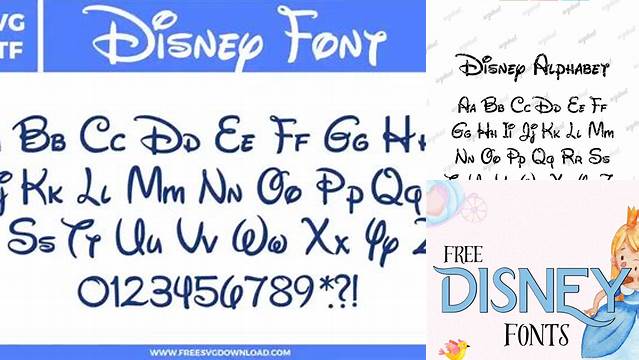
Hey there, fellow creatives! Are you ready to add a touch of Disney magic to your next project? Whether you're crafting invitations for a whimsical birthday party, designing a personalized t-shirt for your next Disney vacation, or simply want to inject some childhood nostalgia into your designs, the right font can make all the difference. And what font is more synonymous with magic and wonder than the iconic Disney font? In this comprehensive guide, we'll dive deep into the world of free Disney font SVGs, exploring everything you need to know to find, use, and even create your own Disney-inspired typography. So, buckle up, grab your creative hats, and let's embark on a magical journey into the realm of Disney fonts!
What is a Disney Font SVG?
Before we delve into the specifics, let's clarify what a Disney font SVG actually is. SVG stands for Scalable Vector Graphics, which is a vector image format. Unlike raster images (like JPEGs or PNGs) that are made up of pixels, SVGs are based on mathematical equations that describe lines, curves, and shapes. This means that Disney font SVGs can be scaled up or down without losing any quality – they'll look crisp and clear whether you're using them for a small craft project or a large-scale banner. This scalability is a huge advantage for designers, as it allows for maximum flexibility in their creative endeavors. Imagine you're creating a banner for a birthday party; with a Disney font SVG, you can enlarge the letters to a substantial size without any pixelation or blurriness. This ensures your final product looks professional and polished, maintaining the visual appeal of the beloved Disney font. SVGs are also generally smaller in file size compared to raster images, making them easier to store and share. This is particularly beneficial when working with multiple design elements, as it helps to keep your project files organized and efficient. Furthermore, the vector nature of Disney font SVGs allows for easy editing and customization. You can change the colors, outlines, and even the shapes of the letters to perfectly match your project's aesthetic. This level of versatility opens up a world of creative possibilities, allowing you to truly personalize your designs. In summary, a Disney font SVG is a versatile, high-quality resource that can elevate your projects to a whole new level of enchantment. It provides the perfect blend of scalability, editability, and visual appeal, making it an indispensable tool for any Disney enthusiast or creative professional.
Why Use a Disney Font SVG?
Okay, so we know what a Disney font SVG is, but why should you actually use one? The reasons are as magical as Cinderella's transformation! First and foremost, the Disney font is instantly recognizable and evokes a sense of nostalgia and wonder. It's the typeface that has graced countless movie titles, posters, and merchandise, making it synonymous with the beloved Disney brand. By incorporating this iconic font into your projects, you're instantly tapping into that emotional connection and adding a touch of whimsy and charm. Imagine the delight of a child receiving a birthday invitation written in the classic Disney font – it immediately sets the tone for a magical celebration! Beyond the emotional appeal, Disney font SVGs offer a practical advantage: scalability. As mentioned earlier, SVGs can be scaled to any size without losing quality, making them perfect for a wide range of projects, from small stickers to large banners. This flexibility ensures that your designs will always look sharp and professional, regardless of the final size. Think about creating personalized decorations for a Disney-themed party; you can use the same Disney font SVG to create everything from small cupcake toppers to large welcome signs, all while maintaining consistent visual quality. Furthermore, using a Disney font SVG can significantly enhance the overall aesthetic of your projects. The playful curves and elegant lines of the font add a touch of sophistication and fun, making your designs stand out from the crowd. Whether you're creating social media graphics, website banners, or even personalized gifts, the Disney font can bring a touch of magic to your creations. It's a versatile font that works well in a variety of contexts, adding a unique flair to your work. Finally, let's not forget the fun factor! Using a Disney font SVG allows you to unleash your creativity and express your love for all things Disney. It's a fantastic way to personalize your projects and make them truly special. So, if you're looking to add a touch of magic, nostalgia, and professionalism to your designs, a Disney font SVG is the perfect choice.
Where to Find Free Disney Font SVGs
Tips for Using Disney Fonts Effectively
Now that you're armed with the knowledge of where to find and how to use Disney font SVGs, let's dive into some tips for using them effectively. After all, with great power comes great responsibility (and in this case, great design potential!). The first and most crucial tip is to use the Disney font sparingly. While it's undeniably charming and recognizable, overusing it can actually diminish its impact. Think of it like adding a pinch of pixie dust – a little goes a long way! Instead of using the Disney font for every single word in your design, consider using it for key elements, such as headings, titles, or short phrases. This will help to draw attention to those elements and create a visual hierarchy in your design. For the body text, opt for a more readable and neutral font that complements the Disney font without competing with it. Fonts like Arial, Helvetica, or even a simple serif font can work well in conjunction with the Disney font. When choosing colors for your Disney font, think about the overall theme and mood of your project. Bright, cheerful colors like red, yellow, and blue are classic choices for Disney-themed designs, but don't be afraid to experiment with other colors as well. Metallics, such as gold or silver, can add a touch of elegance and sophistication, while pastels can create a soft and whimsical feel. Consider the background color of your design as well. A dark Disney font will stand out beautifully against a light background, while a light Disney font will pop against a dark background. The contrast between the font and the background is essential for readability and visual appeal. Pay attention to the spacing between the letters in your Disney font. Because the font is so unique and stylized, the spacing can sometimes appear uneven. Most design software allows you to adjust the kerning (the spacing between individual letters) and the tracking (the overall spacing between all the letters) to create a more balanced and visually pleasing effect. Small adjustments to the letter spacing can make a big difference in the overall look of your design. Another tip is to consider the context of your project. Is it a formal invitation, a casual party decoration, or a fun social media graphic? The way you use the Disney font should reflect the tone and purpose of the project. For example, you might use a more elaborate and stylized version of the font for a formal invitation, while a simpler version might be more appropriate for a casual design. Don't be afraid to get creative and experiment with different ways of using the Disney font. Try adding shadows, outlines, or gradients to the letters to create unique effects. You can also combine the Disney font with other design elements, such as illustrations or patterns, to create a cohesive and visually appealing design. Remember, the goal is to use the Disney font in a way that enhances your project and captures the magic of Disney without overwhelming the overall design. By following these tips, you can use Disney fonts effectively to create stunning and memorable designs that will delight your audience.
Creating Your Own Disney-Inspired Font
Feeling extra creative, guys? How about trying your hand at creating your very own Disney-inspired font? While designing a completely original font is a complex process, you can definitely create a font that captures the essence and magic of the Disney aesthetic. It's a fun and rewarding challenge that allows you to put your unique stamp on this iconic style. The first step in creating your Disney-inspired font is to study the original Disney font closely. Pay attention to the shapes of the letters, the curves, the serifs (or lack thereof), and the overall flow of the typeface. What makes the Disney font so recognizable and unique? Is it the whimsical curves? The elegant lines? The playful proportions? By understanding the key characteristics of the Disney font, you can start to develop your own interpretation of the style. Sketching out your ideas on paper is a great way to begin. Experiment with different letterforms and try to capture the spirit of the Disney font while adding your own personal touch. Don't be afraid to play around with different styles and variations. You might even want to create multiple versions of each letter before settling on the final design. Once you have a good idea of the letterforms you want to create, you can start using font design software to digitize your sketches. There are several font design programs available, ranging from free and open-source options like FontForge to professional-grade software like Glyphs and FontLab Studio. These programs allow you to draw the letterforms precisely, adjust their curves and angles, and create a fully functional font file. Digitizing your sketches can be a time-consuming process, but it's essential for creating a polished and professional-looking font. Pay close attention to the details, such as the smoothness of the curves and the consistency of the letter weights. You'll also need to consider the spacing between the letters and the overall balance of the font. As you're designing your Disney-inspired font, think about the overall mood and tone you want to convey. Are you aiming for a whimsical and playful font, or a more elegant and sophisticated one? The style of your font should reflect the purpose for which it will be used. For example, a font designed for children's books might have a different look and feel than a font designed for formal invitations. Don't forget to test your font in different sizes and contexts. Print out samples of your font and see how it looks on paper. Use it in different design mockups to get a sense of how it will work in real-world applications. This will help you identify any areas that need improvement and refine your font until it's perfect. Creating your own Disney-inspired font is a journey of experimentation and discovery. It takes time, patience, and a keen eye for detail. But the end result – a unique and magical font that you created yourself – is well worth the effort. So, unleash your inner font designer and let your creativity soar!
Licensing and Legal Considerations
Alright, before you go wild and use Disney fonts on everything you create, let's have a quick chat about licensing and legal considerations. This might not be the most exciting topic, but it's super important to understand to avoid any potential copyright issues. When it comes to Disney fonts, the key thing to remember is that the official Disney font is a copyrighted asset. This means that you can't just download it and use it commercially without permission from The Walt Disney Company. Using a copyrighted font without permission can lead to legal trouble, so it's always best to err on the side of caution. However, don't despair! There are still plenty of ways to use Disney-inspired fonts legally. As we discussed earlier, there are many free Disney font SVGs available online that are inspired by the official Disney font but are not exact replicas. These fonts are often created by independent designers and are offered under various licenses, such as personal use or commercial use. Before using any free font, it's crucial to carefully check the license terms. The license will specify how you are allowed to use the font, whether it's for personal projects, commercial projects, or both. Some licenses may also have restrictions on how you can modify or redistribute the font. If you're unsure about the license terms, it's always a good idea to contact the font designer directly and ask for clarification. Another option is to purchase a commercial license for a Disney-inspired font. Many font foundries offer fonts that are similar in style to the Disney font, and these fonts often come with commercial licenses that allow you to use them in your projects for a fee. Purchasing a commercial license ensures that you have the legal right to use the font in your commercial work, giving you peace of mind. When using a Disney-inspired font, it's also important to avoid creating designs that could be confused with official Disney merchandise. For example, if you're creating a t-shirt design using a Disney-inspired font, make sure it's clear that it's not an official Disney product. You can do this by adding your own unique designs and branding elements to the design. It's also worth noting that even if you create your own Disney-inspired font, you still need to be mindful of copyright law. While you're free to create a font that is inspired by the Disney font, you can't simply copy the official Disney font letter for letter. Your font needs to be original and distinct enough to avoid infringing on Disney's copyright. In summary, when using Disney fonts or Disney-inspired fonts, always prioritize respecting copyright law and licensing terms. Check the license before using any font, and if in doubt, seek clarification or purchase a commercial license. By being mindful of these legal considerations, you can ensure that you're using Disney fonts responsibly and ethically.
Final Thoughts: Unleash the Magic!
So there you have it, folks! A comprehensive guide to the wonderful world of free Disney font SVGs. We've covered everything from what they are and why you should use them, to where to find them, how to use them effectively, and even how to create your own Disney-inspired font. We've also touched on the important topic of licensing and legal considerations, ensuring you can create with confidence and peace of mind. Now, it's time to unleash the magic and put your newfound knowledge into action! Whether you're crafting invitations for a fairytale wedding, designing merchandise for your small business, or simply adding a touch of whimsy to your personal projects, Disney fonts can help you bring your creative vision to life. Remember, the Disney font is more than just a typeface – it's a symbol of imagination, wonder, and the power of storytelling. By incorporating this iconic font into your designs, you're tapping into a rich legacy of creativity and inspiring others to dream big. Don't be afraid to experiment, to play, and to let your inner child shine through. The world of design is your oyster, and Disney fonts are just one of the many pearls you can use to create something truly special. So, go forth, fellow creatives, and sprinkle a little Disney magic wherever you go! Let the whimsical curves and elegant lines of the Disney font guide your hand as you craft your next masterpiece. And remember, the most important ingredient in any creative project is passion. When you create with love and enthusiasm, the results are sure to be magical. Happy designing, and may your creations be filled with wonder and joy! As a final note, always stay curious and keep learning. The world of design is constantly evolving, and there's always something new to discover. Explore different fonts, experiment with different styles, and never stop pushing the boundaries of your creativity. With the right tools, the right knowledge, and a whole lot of imagination, you can create designs that are truly unforgettable. So, embrace the magic, embrace the challenge, and let your creativity take flight!